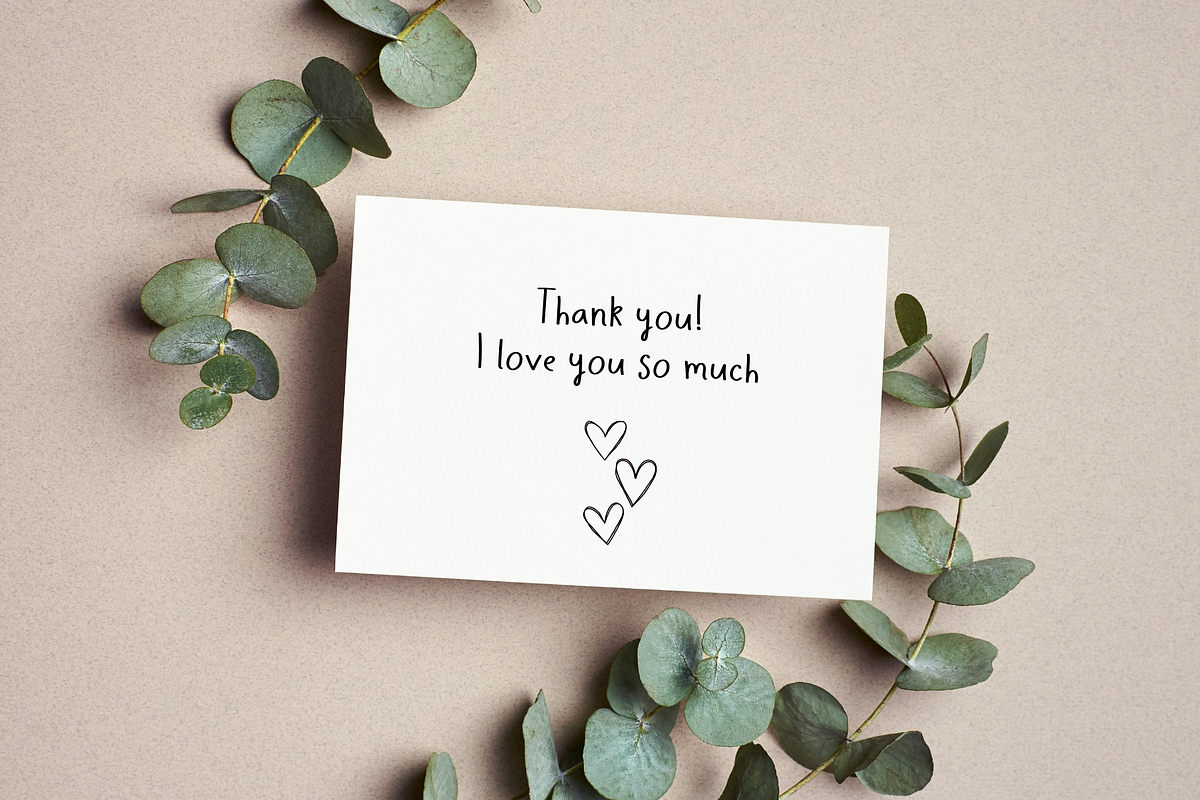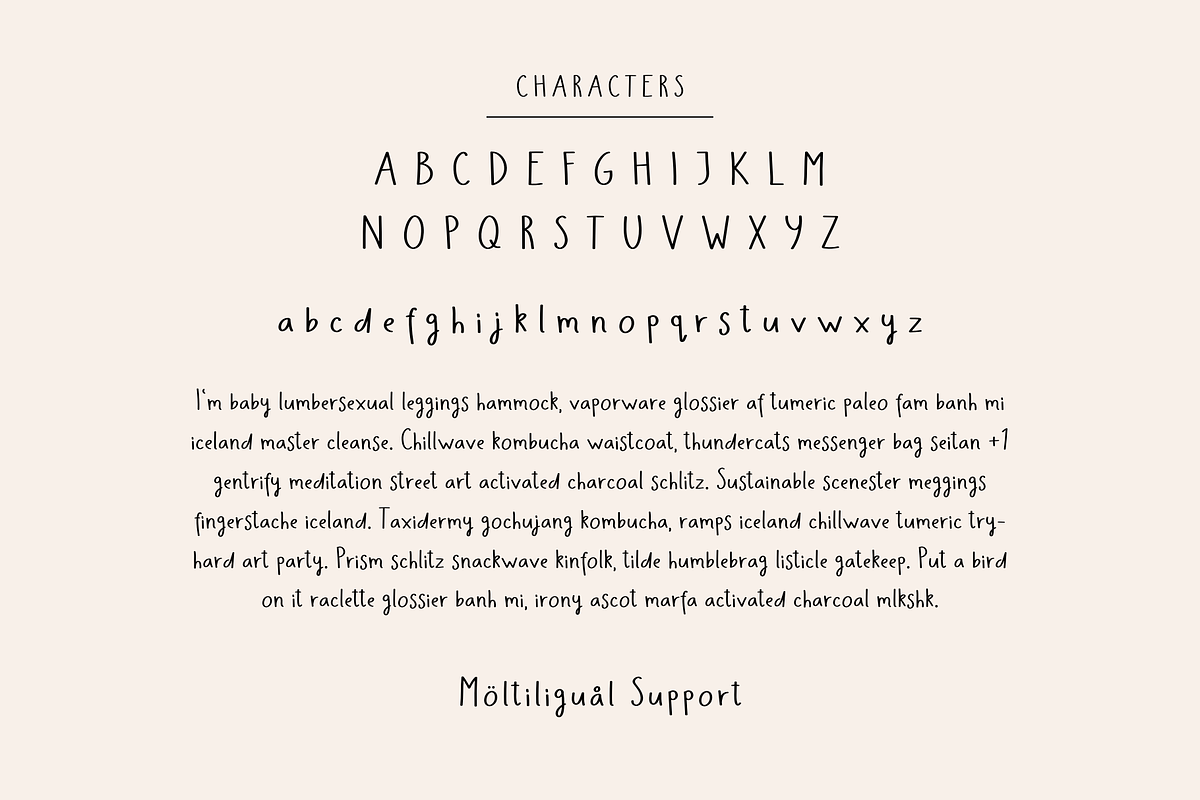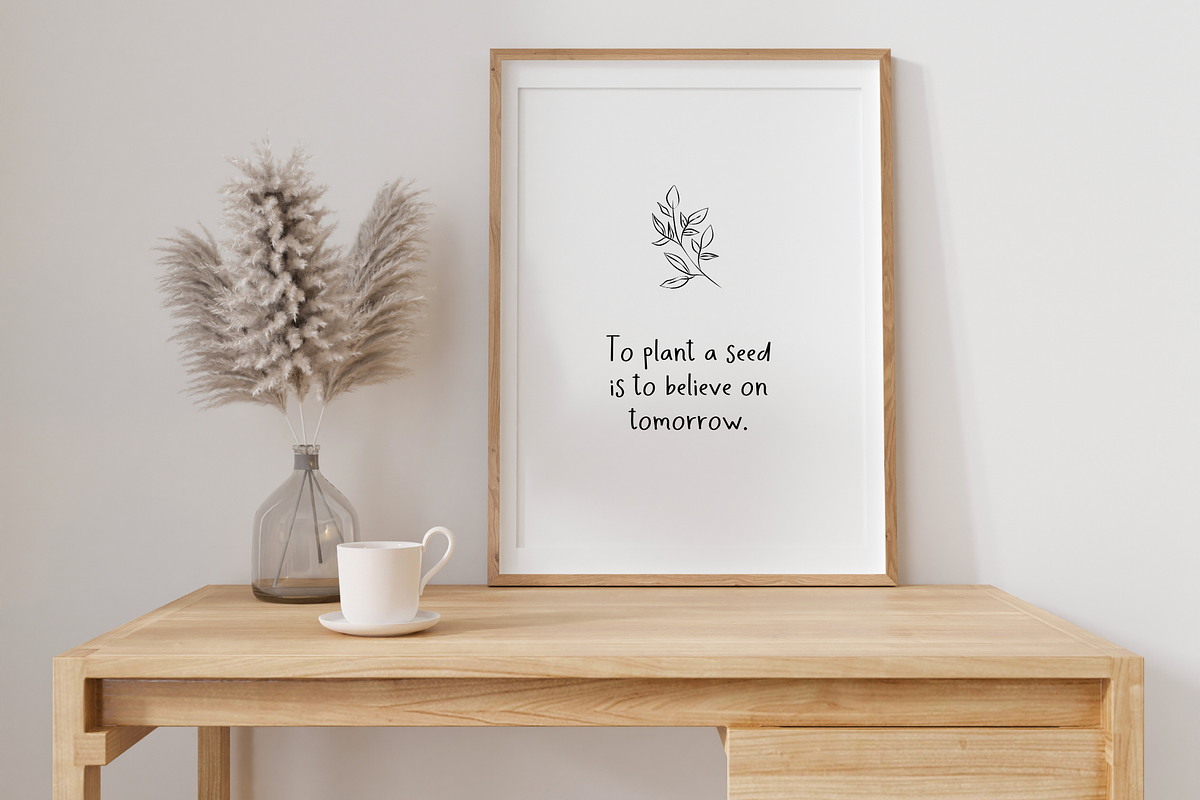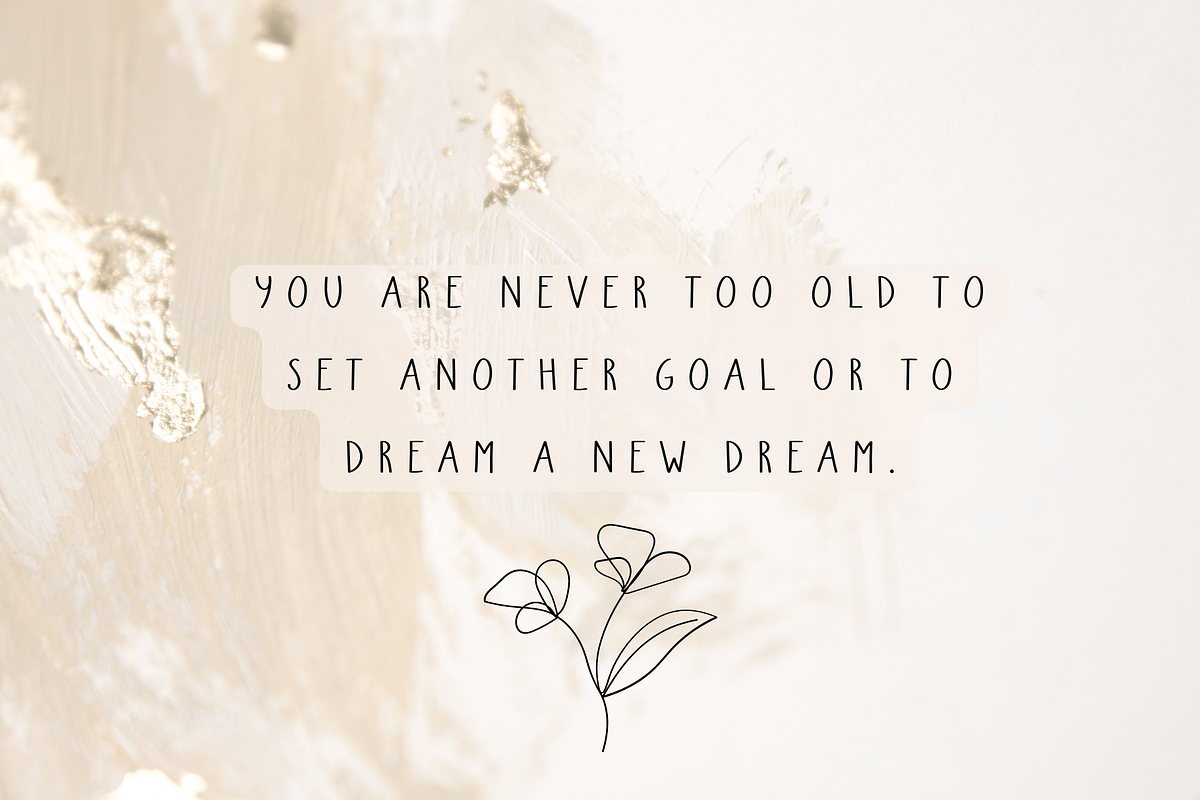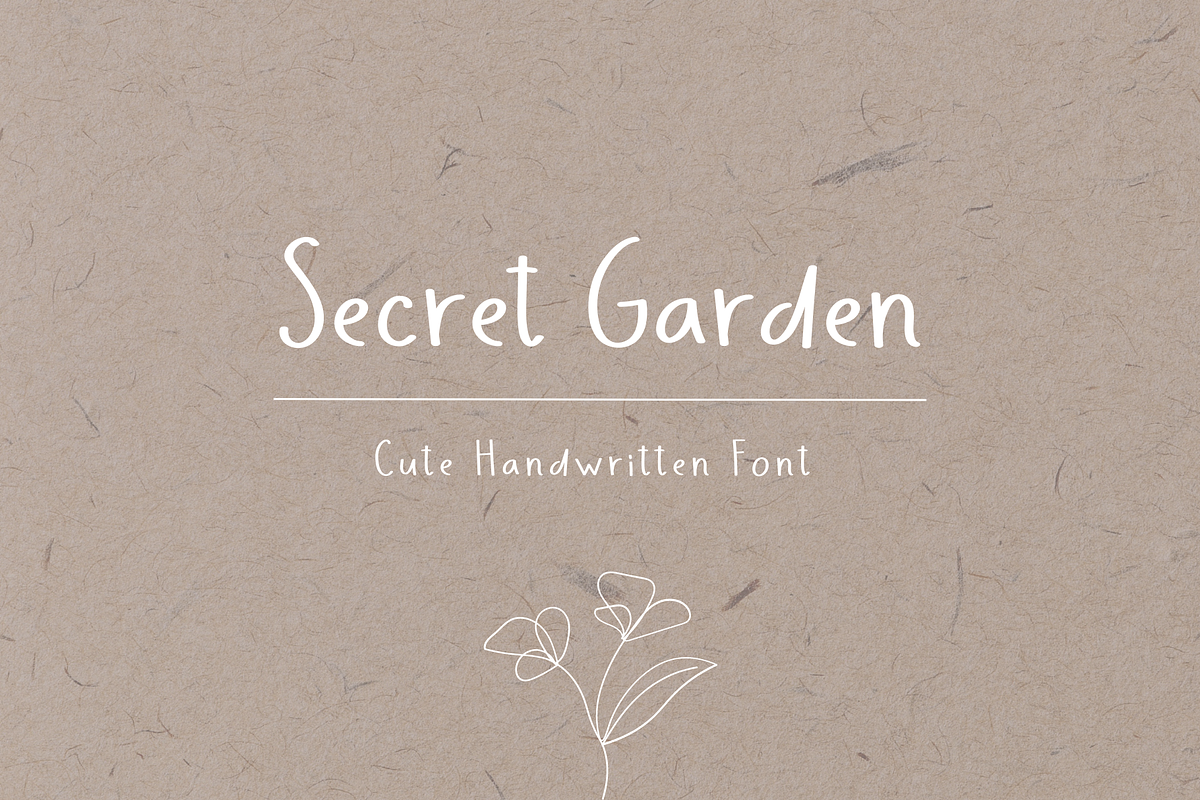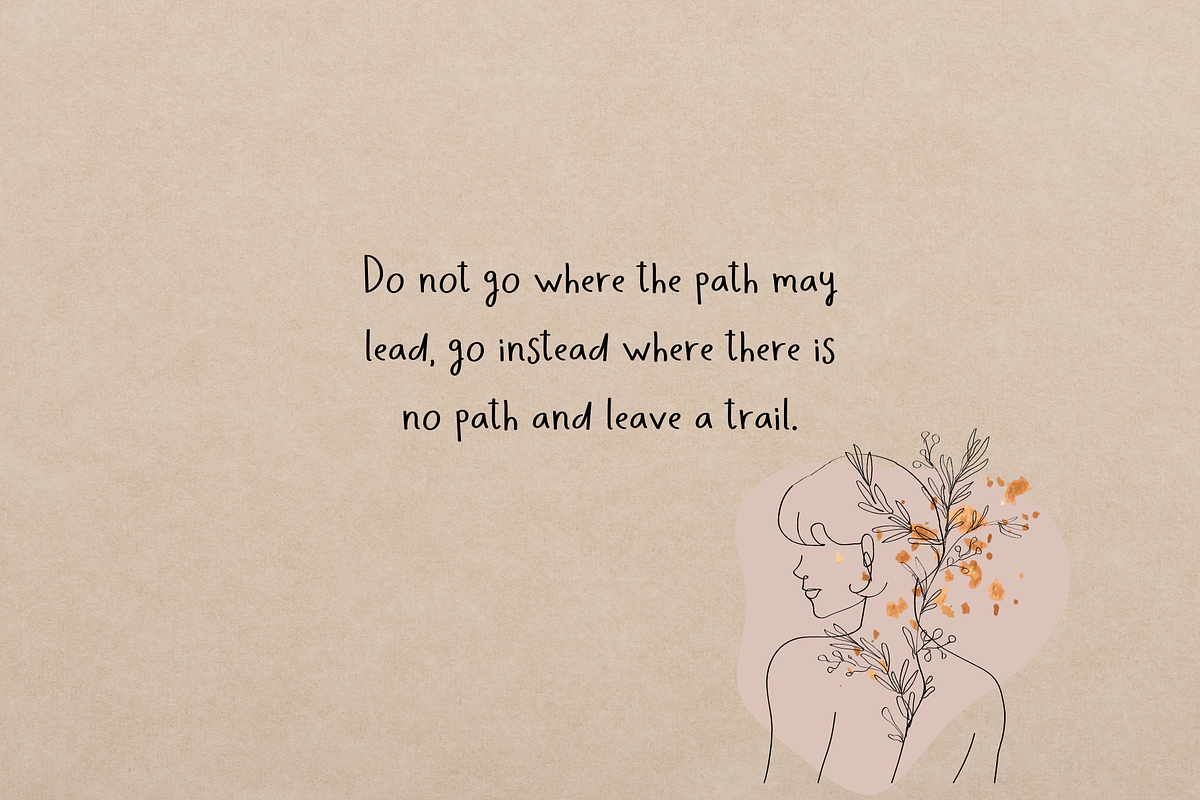
Secret Garden
Add some sweetness to your designs with this adorable font! It's perfect for any project that needs a touch of whimsy and charm. From greeting cards and invitations to social media graphics and branding materials, our cute font will bring a playful energy to your work. This font is also prefect to spice up your digital notes! With its playful curves and delightful details, this font is sure to make your designs stand out.